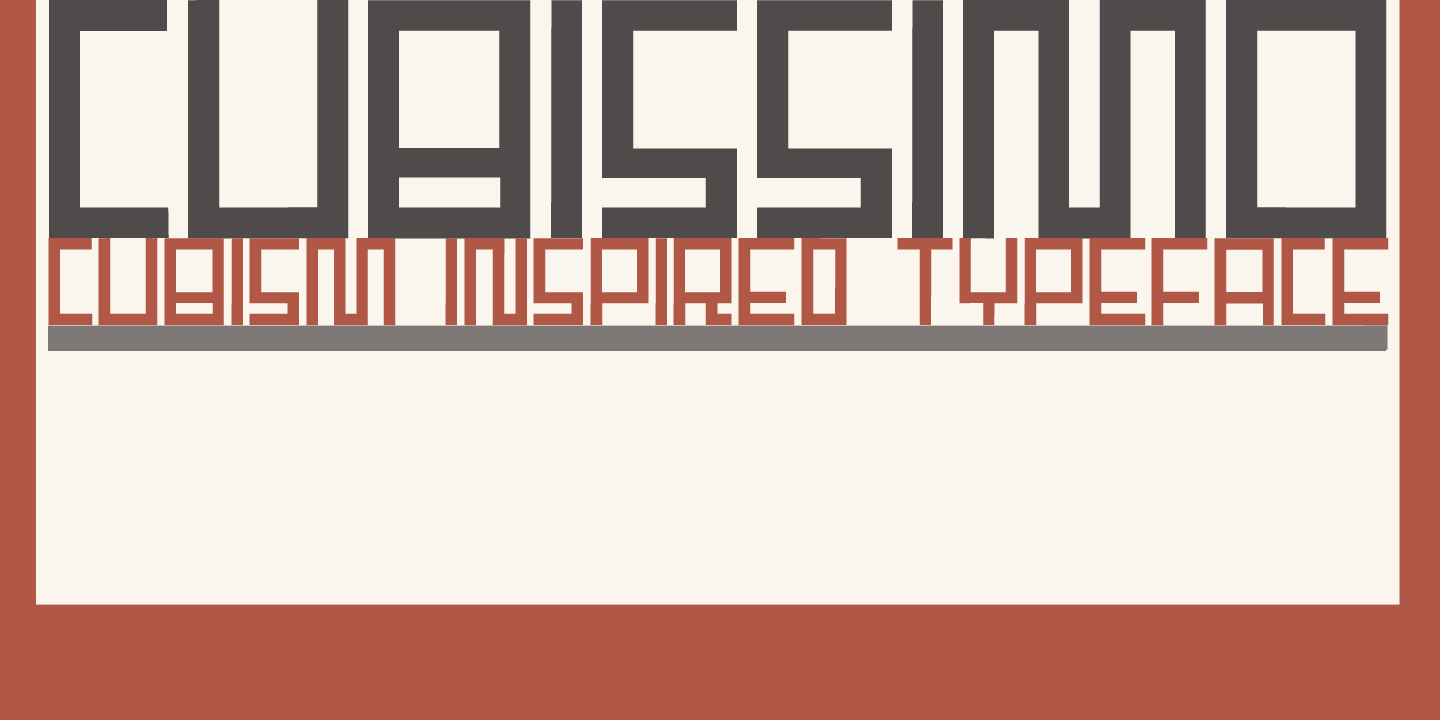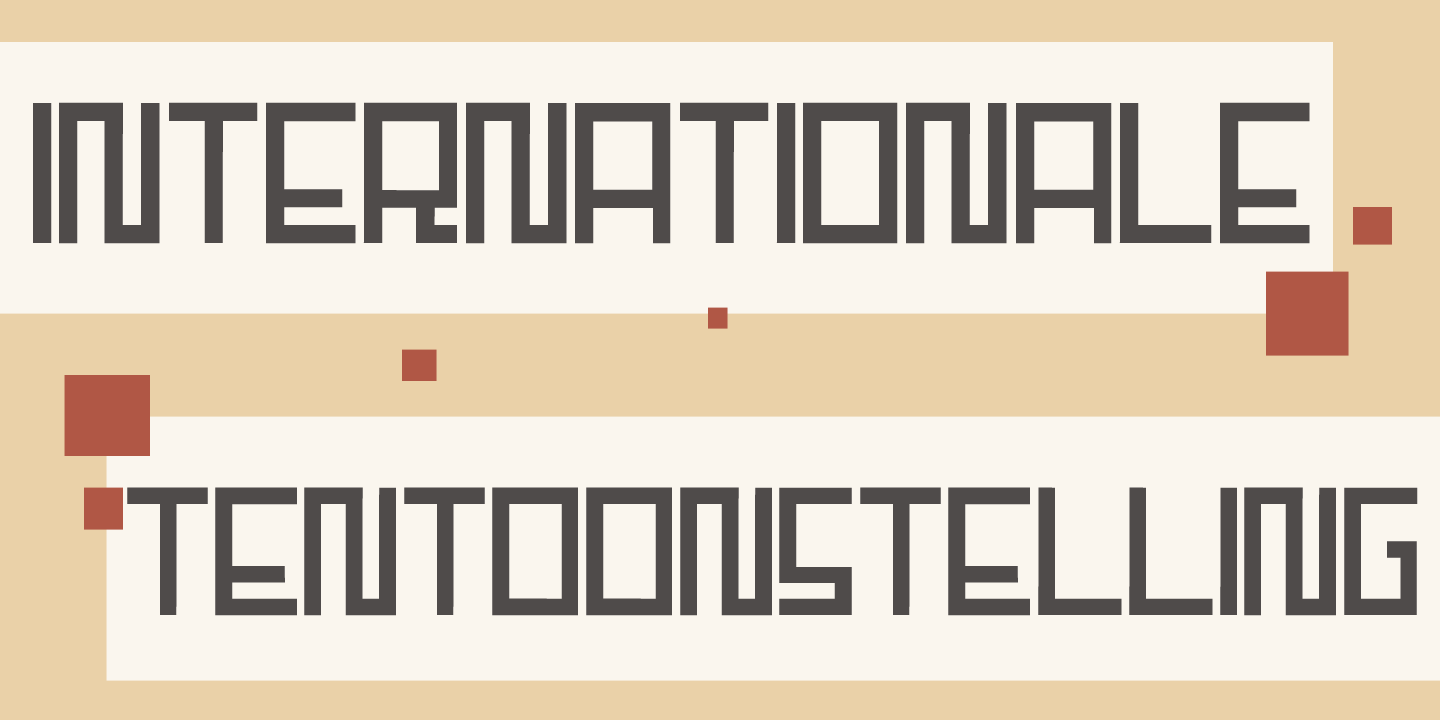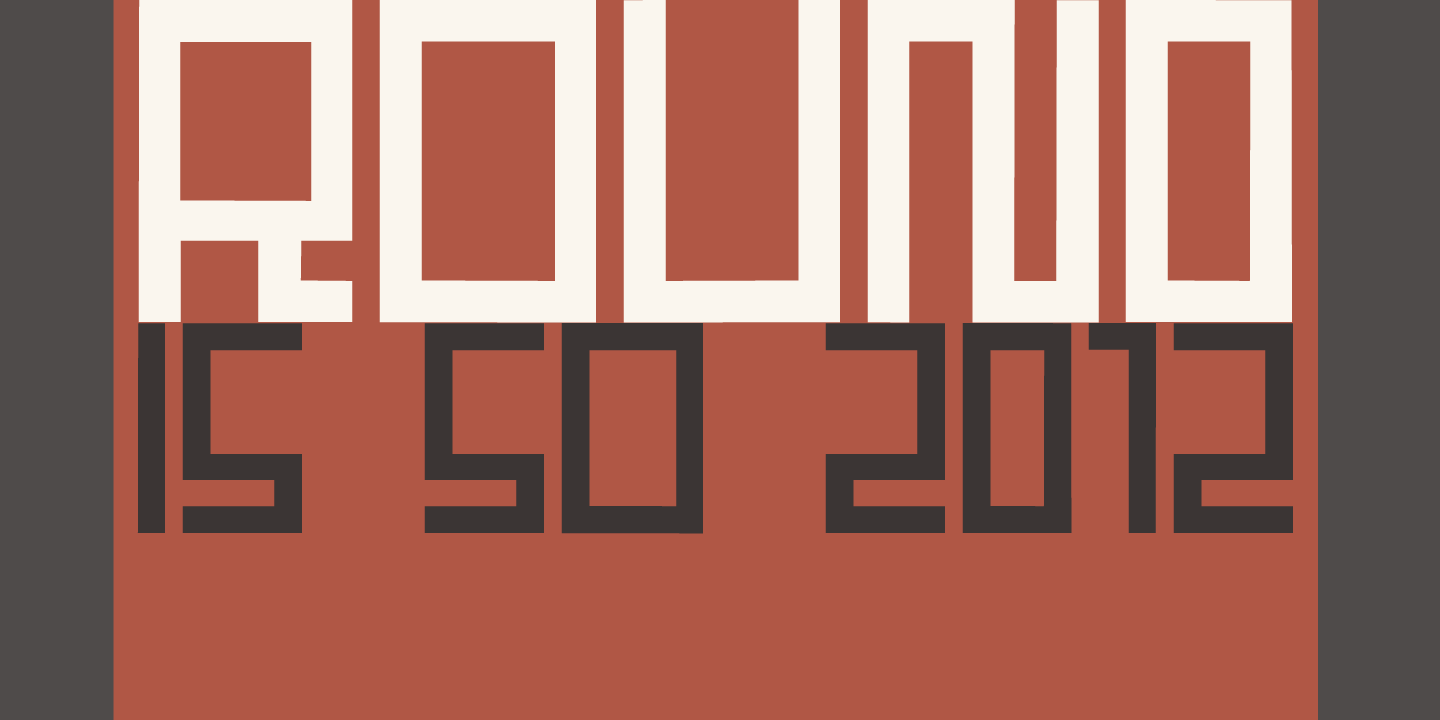
Cubissimo
Cubissimo is a geometric font inspired by a 1929 poster advertising a museum exhibition. It is an all-caps cubist typeface designed to look good on posters. It comes with extensive language support.